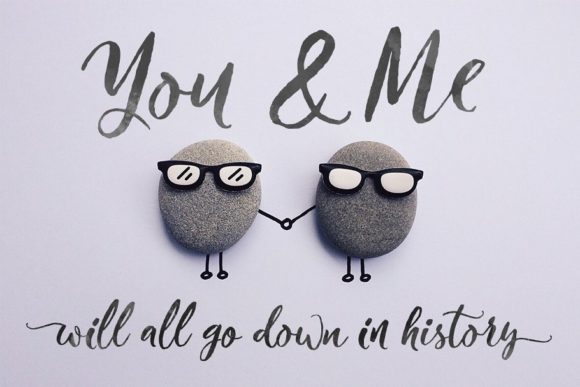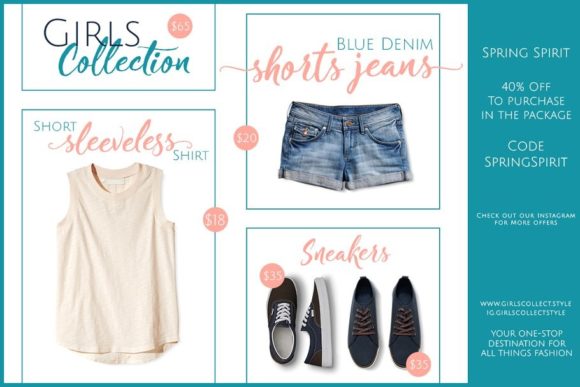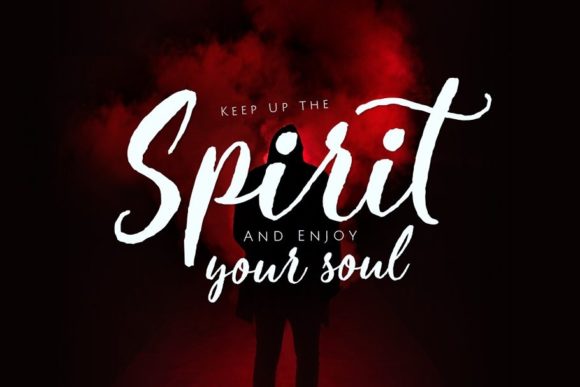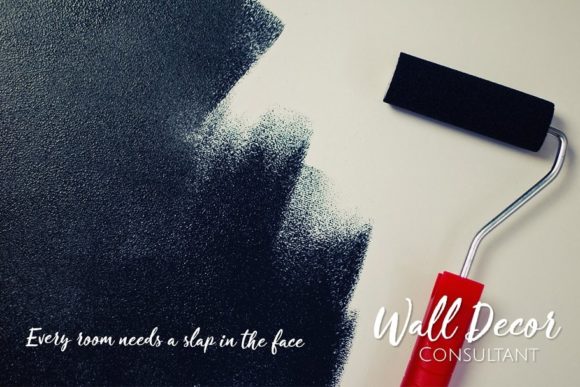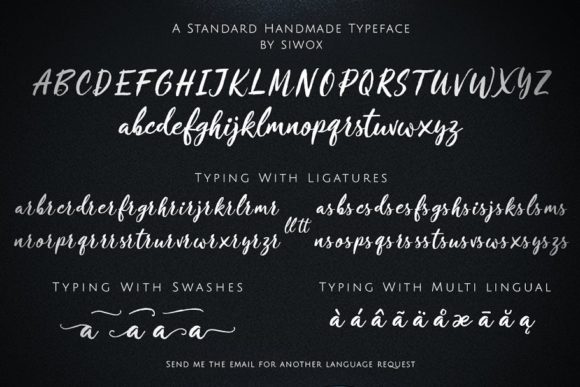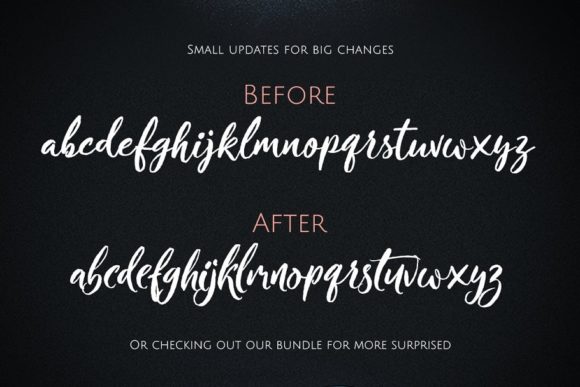
Introducing Crushine Font: The Playful Script Font to Elevate Your Designs
Are you tired of using the same old fonts in your designs? Look no further! Crushine Font is a lovely script font that is sure to add a touch of charm and playfulness to your creative projects. With its unique and whimsical characters, Crushine Font is the perfect addition to any designer’s toolkit.
What Makes Crushine Font So Special?
Crushine Font features charming, playful characters that seem to dance along the baseline. Its elegant and flowing script style makes it perfect for a variety of design applications, from wedding invitations and party decorations to branding and advertising materials. Whether you’re a designer, crafter, or DIY enthusiast, Crushine Font is sure to make your projects stand out.
One of the best things about Crushine Font is that it is PUA (Private Use Area) encoded. This means that you can access all glyphs and swashes with ease, giving you even more creative freedom to customize your designs. With PUA encoding, you can easily insert special characters, ligatures, and other unique features that will take your designs to the next level.
Crushine Font is a versatile font that is perfect for a wide range of design applications. Here are just a few ways that designers and crafters can use Crushine Font:
- Wedding Invitations: Add a touch of elegance and whimsy to your wedding invitations and stationery with Crushine Font.
- Party Decorations: Use Crushine Font to create custom party decorations, such as banners, garlands, and gift tags.
- Branding and Advertising: Use Crushine Font to add a playful and creative touch to your branding and advertising materials, such as logos, business cards, and brochures.
- DIY Projects: Use Crushine Font to add a personal touch to your DIY projects, such as scrapbooking, journaling, and card making.
Tips for Using Crushine Font
Here are a few tips for using Crushine Font in your designs:
- Pair it with a bold font: Crushine Font is a script font, so it pairs well with bold, sans-serif fonts. Try pairing it with a font like Arial Black or Impact to create a striking contrast.
- Use it for headings: Crushine Font is perfect for headings and titles, as it adds a touch of elegance and sophistication to your designs.
- Experiment with colors: Crushine Font looks great in a variety of colors, from bright and bold to soft and pastel. Experiment with different colors to find the perfect look for your design.
Crushine Font is a lovely script font that is sure to add a touch of charm and playfulness to your designs. With its unique and whimsical characters, PUA encoding, and versatility, Crushine Font is the perfect addition to any designer’s toolkit. Whether you’re a designer, crafter, or DIY enthusiast, Crushine Font is sure to make your projects stand out. So why wait? Download Crushine Font today and start creating!
- Charming, playful characters that seem to dance along the baseline
- Perfect for wedding invitations, party decorations, branding and advertising, and DIY projects
- Elegant and flowing script style